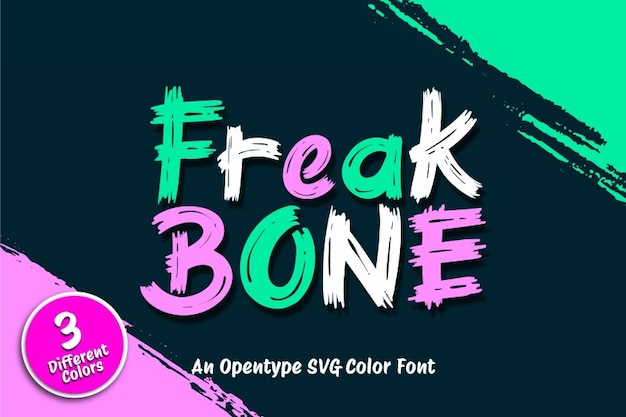
Freak Bone
Freak Bone Font
"Freak Bone" is a dynamic brush font that embodies the raw energy of hand-drawing. Its bold, expressive strokes and organic texture make it perfect for projects requiring a rugged, artistic feel. Ideal for posters, album covers, and edgy designs, "Freak Bone" brings a unique, handcrafted touch that stands out with its spirited and unconventional style.